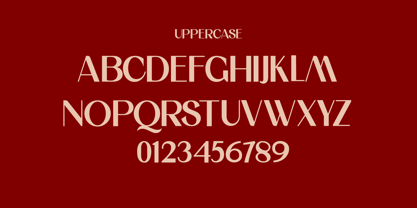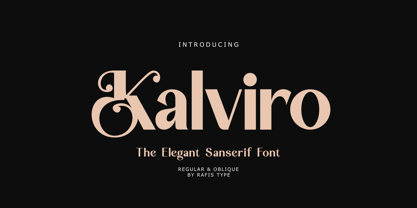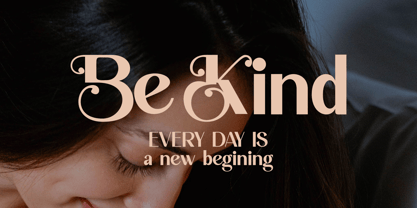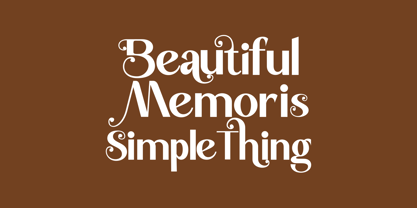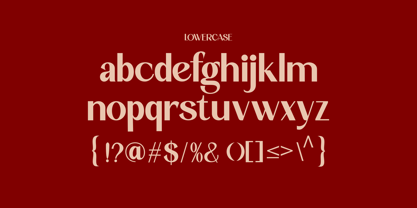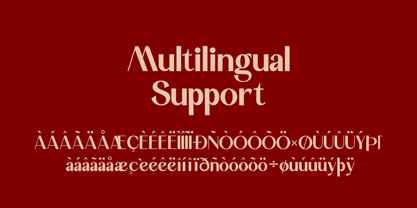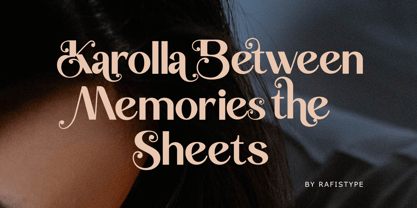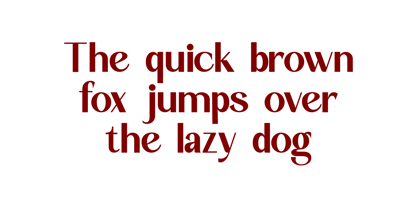
Kalviro
by Rafis Type
The Kalviro Font Family was designed by Agus Priono and published by Rafis Type. Kalviro contains 2 styles and family package options. More about this family
.Kalviro is a modern sans serif typeface designed with a clean, confident, and versatile character. Its balanced proportions, smooth curves, and refined letterforms create a contemporary look that works beautifully across both digital and print applications.
With its strong yet elegant appearance, Kalviro is perfect for branding, logos, headlines, posters, packaging, social media designs, magazines, and modern editorial projects. The font combines simplicity with a distinctive personality, making it easy to use while still giving every design a memorable visual identity.